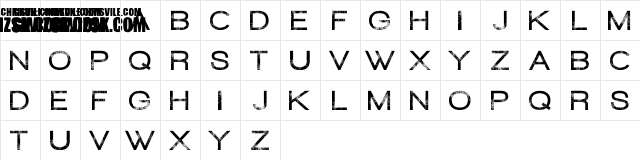
Redux Regular
| Foundry | Fonts by GKDN |
| Designer | Chris Vile |
Design Context for Redux Typeface
Redux takes a measured approach to typography — its balanced proportions and neutral character make it a reliable workhorse for both digital and print work.
Pro Tip: Pair Redux with a font of contrasting weight or personality to build a more expressive typographic hierarchy.